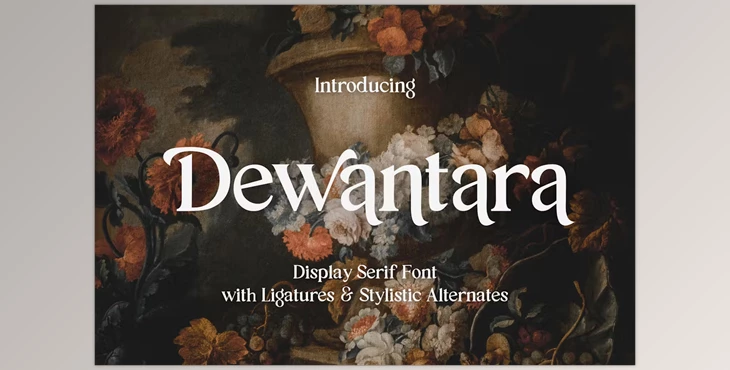
Dewantara Display Serif Font:
Introducing Dewantara, a display serif font meticulously crafted with ligatures and alternates to exude a modern and elegant aesthetic. Seamlessly blend these elements to curate the perfect typographic design for your project.